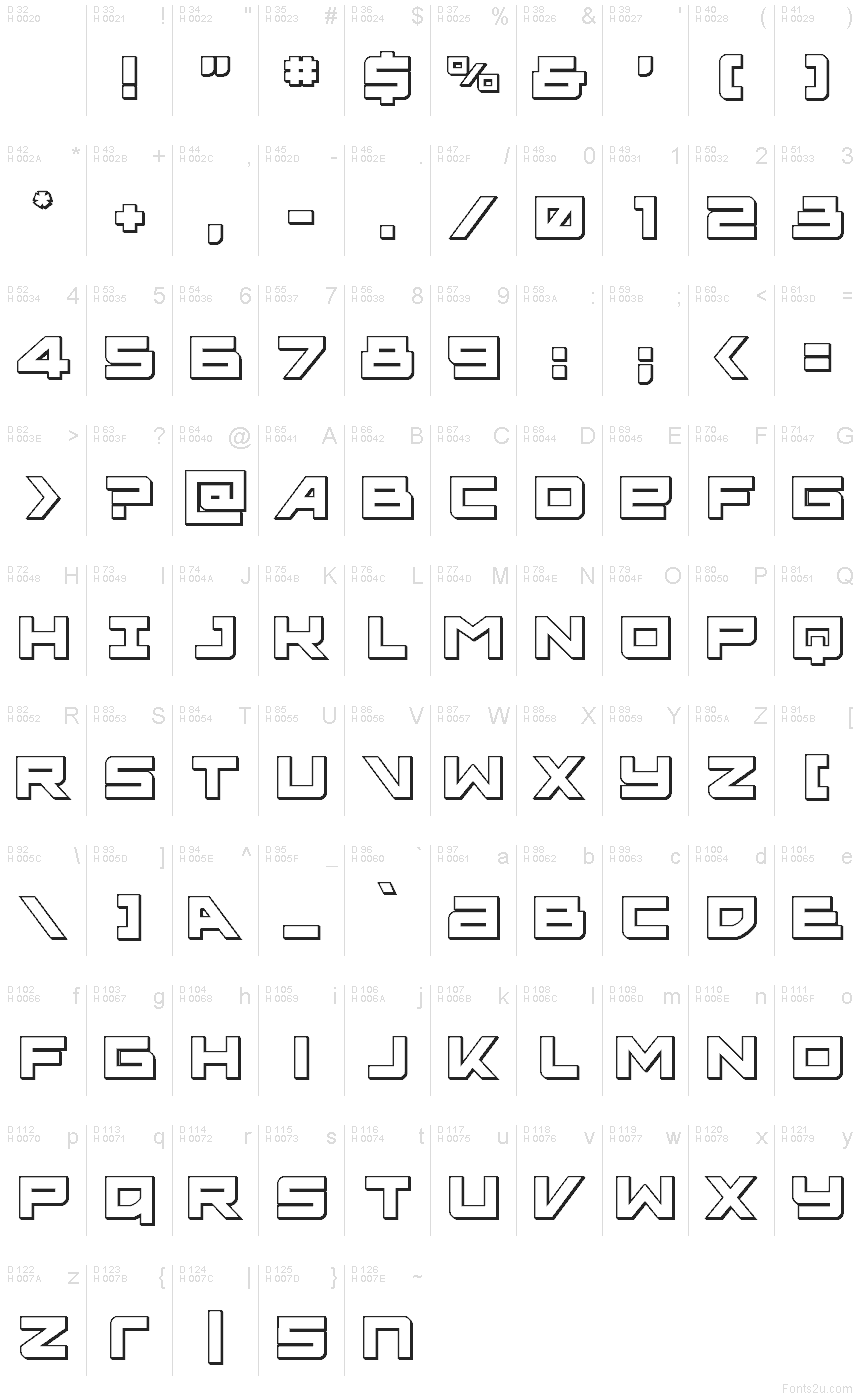
Ace of Swords 3D
Ace of Swords 3D font by Iconian Fonts is a free techno 3D display typeface. Part of the Ace of Swords family, it carves letters into crisp, faceted frames with beveled edges and a subtle inner contour that reads like machined metal. Angular cuts, squared bowls, and tight geometry give it a sci‑fi, hard-surface feel—like panels snapped together on a starship hull.
Using Ace of Swords 3D, headlines snap into focus for game titles, esports branding, sci‑fi posters, YouTube thumbnails, tech event graphics, and stream overlays. The dimensional outline keeps strokes readable at large sizes while delivering that punchy, futuristic hit. Pair this free font with a plain geometric sans for body copy, and let the 3D forms lead at bold weights and generous tracking.